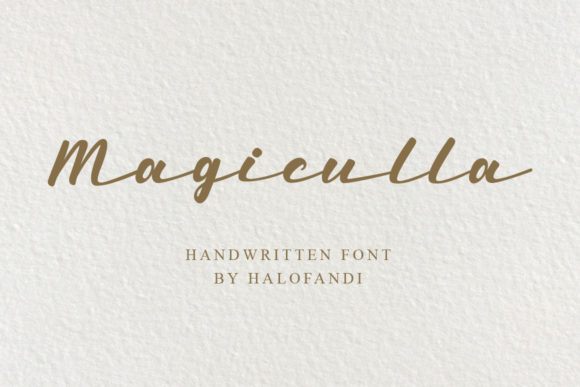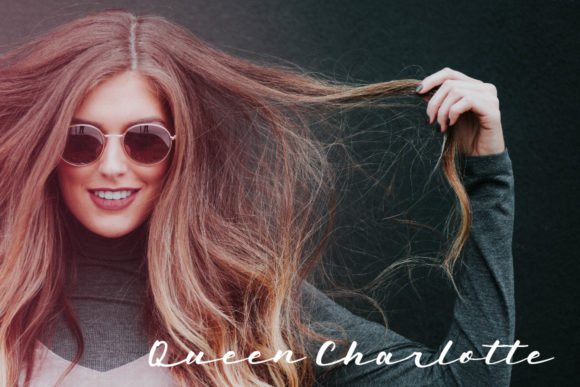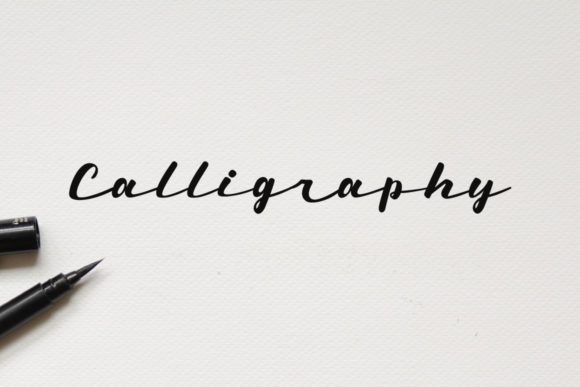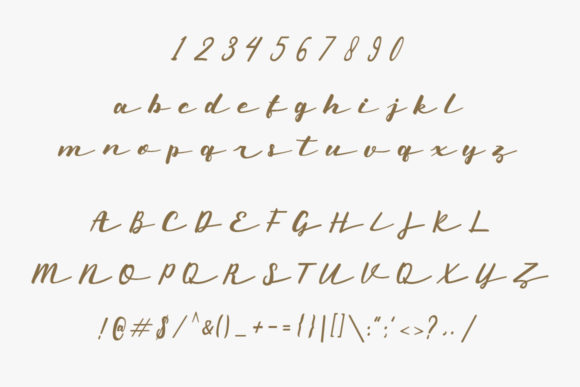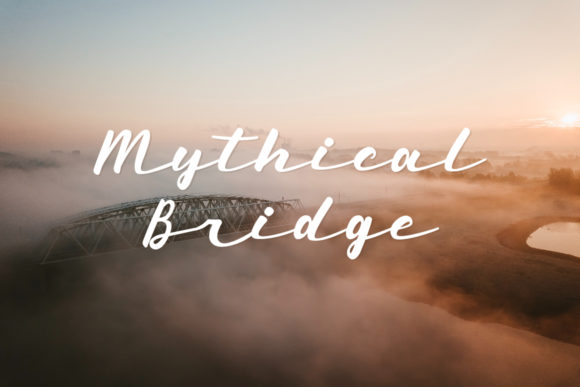
About Magiculla Font
“Magiculla” emerges as an exquisitely distinct, delicate, and timeless handwritten font that captures the essence of elegance. Its visual impact resonates across a spectrum of design projects, ranging from wedding invitations to logos, infusing each creation with a touch of sophistication. This font’s unparalleled charm knows no bounds, making it the perfect choice for projects seeking to encapsulate enduring beauty.
What sets “Magiculla” apart is its innate ability to convey a sense of uniqueness and refinement. Its meticulously crafted letters carry an air of authenticity, embodying the essence of grace that typifies masterful calligraphy. With every stroke, “Magiculla” weaves a narrative of elegance and timelessness that transcends the ordinary.
Picture the transformative power of “Magiculla” on an array of designs—a romantic wedding invitation adorned with the font’s exquisite script, setting the stage for an enchanting celebration. Envision the font gracing a luxury brand’s logo, encapsulating the essence of opulence and artistry in each character. This font’s versatility elegantly extends across various contexts, infusing projects with a layer of enduring sophistication.
The natural allure of “Magiculla” is simply enchanting, as if it holds the key to a realm of refined beauty. Its letters cascade with grace, imparting a sense of elegance that elevates the overall design. The font radiates an aura of timeless charm, inviting creators to embark on a journey of artistic exploration.
Designers and enthusiasts alike are sure to be captivated by the timeless elegance of “Magiculla.” Its adaptability transcends conventions, making it an indispensable tool for a myriad of projects. Beyond being a mere font, “Magiculla” evolves into a medium of expression, empowering creators to infuse their work with a dash of enduring sophistication.
In essence, “Magiculla” stands as a testament to the artistry that typography can encompass. Its delicate script beckons you to venture into the world of design, transforming your ideas into tangible creations that embody timeless beauty. As you navigate the realms of creativity, let “Magiculla” be your guiding light, leading you to craft designs that reflect the essence of elegance and create a lasting impact on any canvas, all while capturing the true magic of your creative imagination.